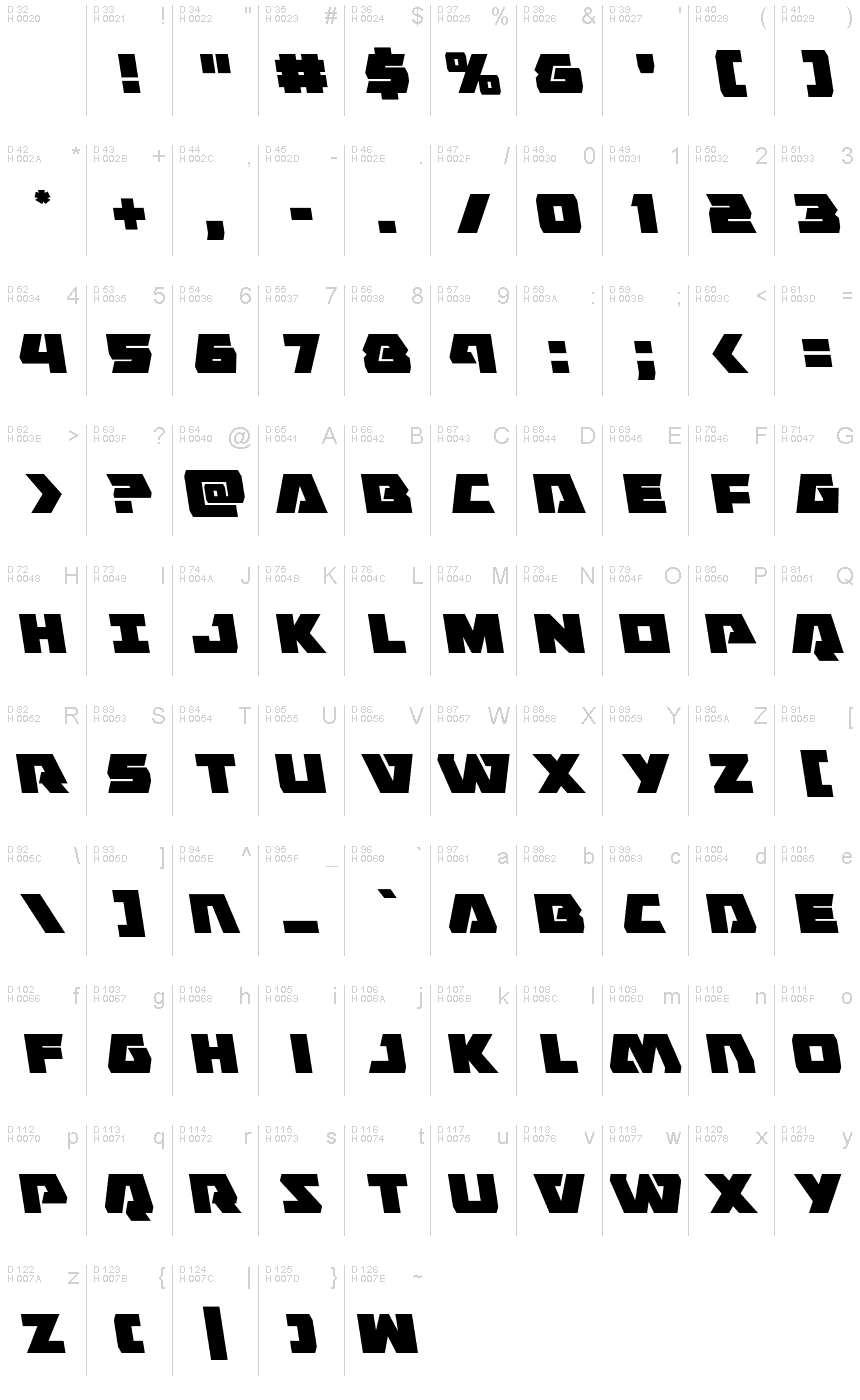
Eagle Strike Semi-Leftalic
Eagle Strike Semi-Leftalic, a captivating display font designed by Daniel Zadorozny, boasts a futuristic style that is perfect for projects that require an extra-bold and attention-grabbing aesthetic. Its unique semi-leftalic design sets it apart from traditional fonts, while its extra-expanded width adds an additional layer of visual intrigue. This versatile typeface is suitable for a variety of creative applications, including branding and marketing materials, product packaging, digital displays, and more. With Eagle Strike Semi-Leftalic as your go-to font choice, you can rest assured that your design will stand out from the crowd with its bold, dynamic presence.